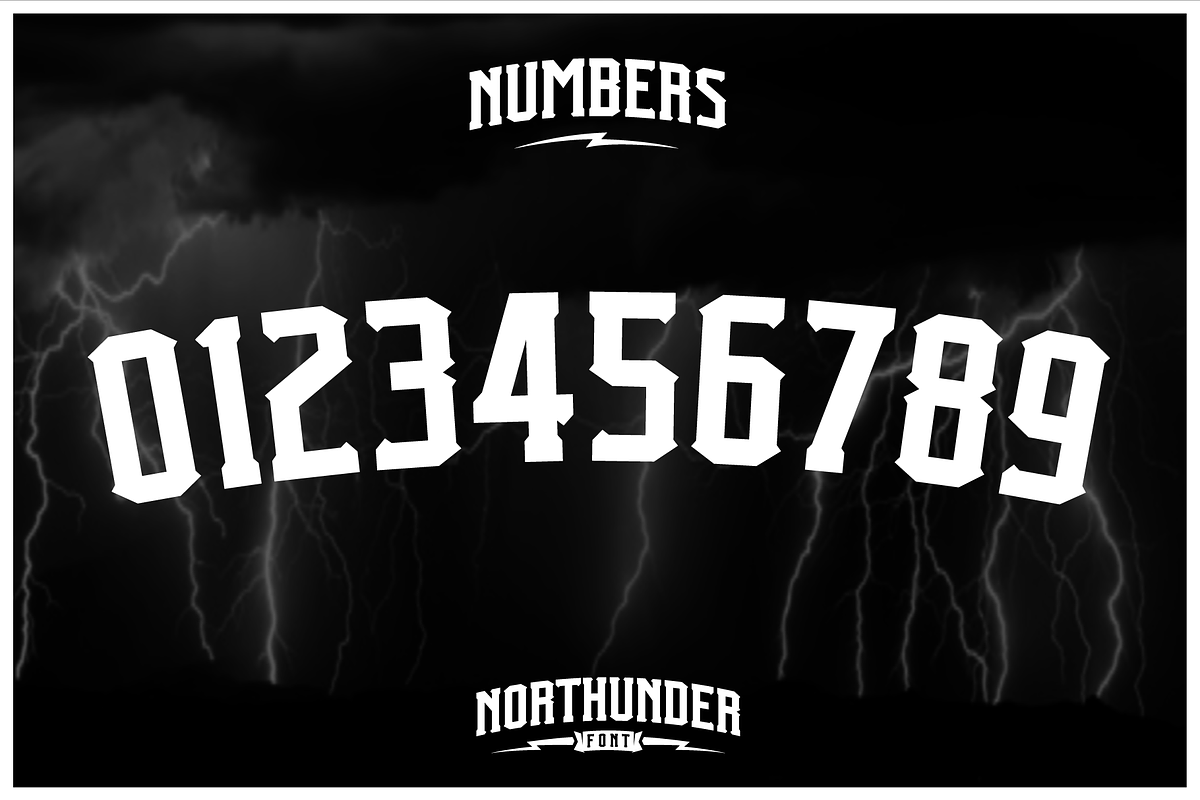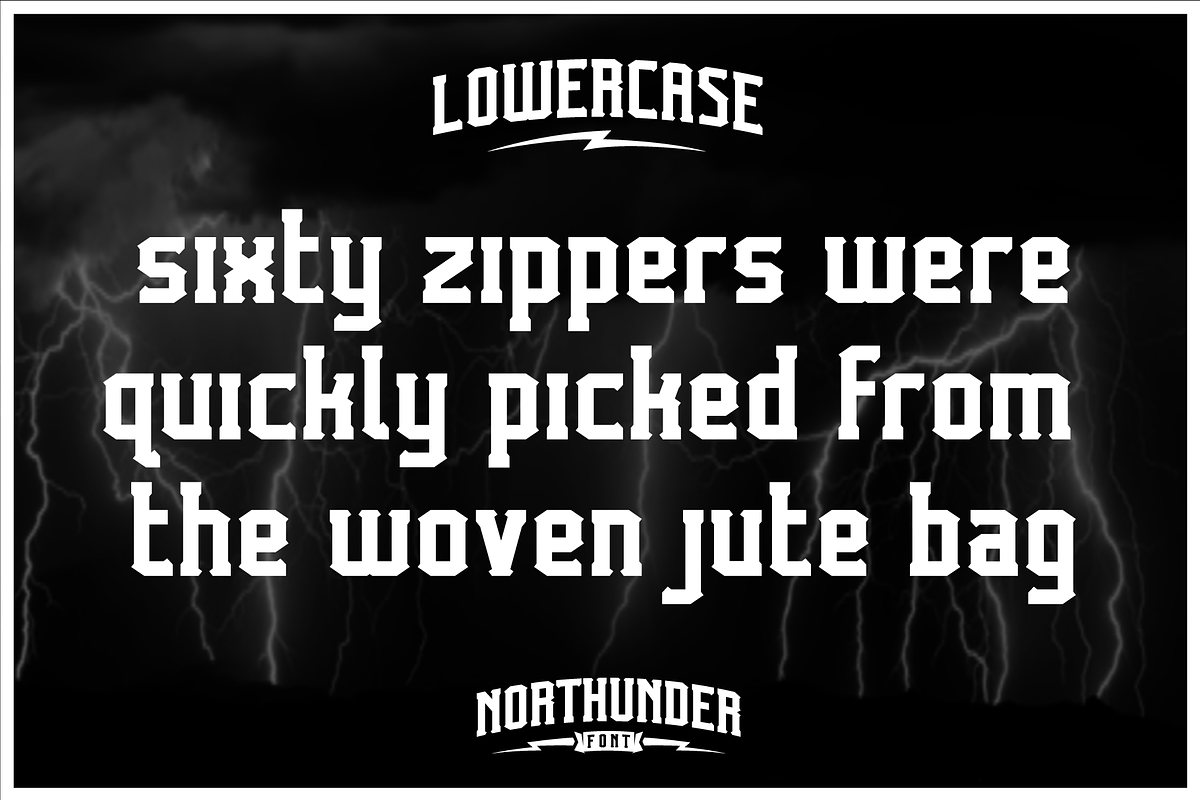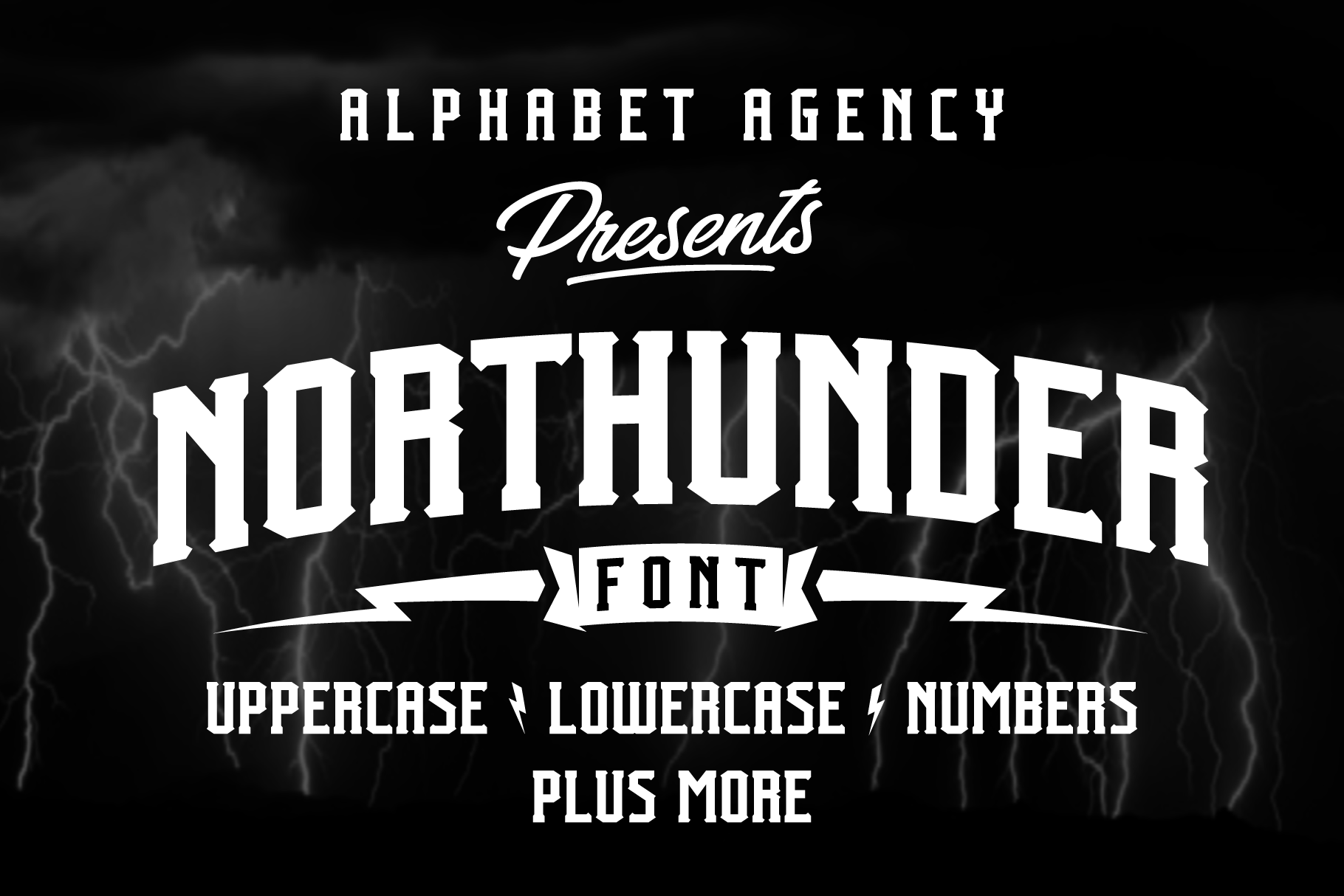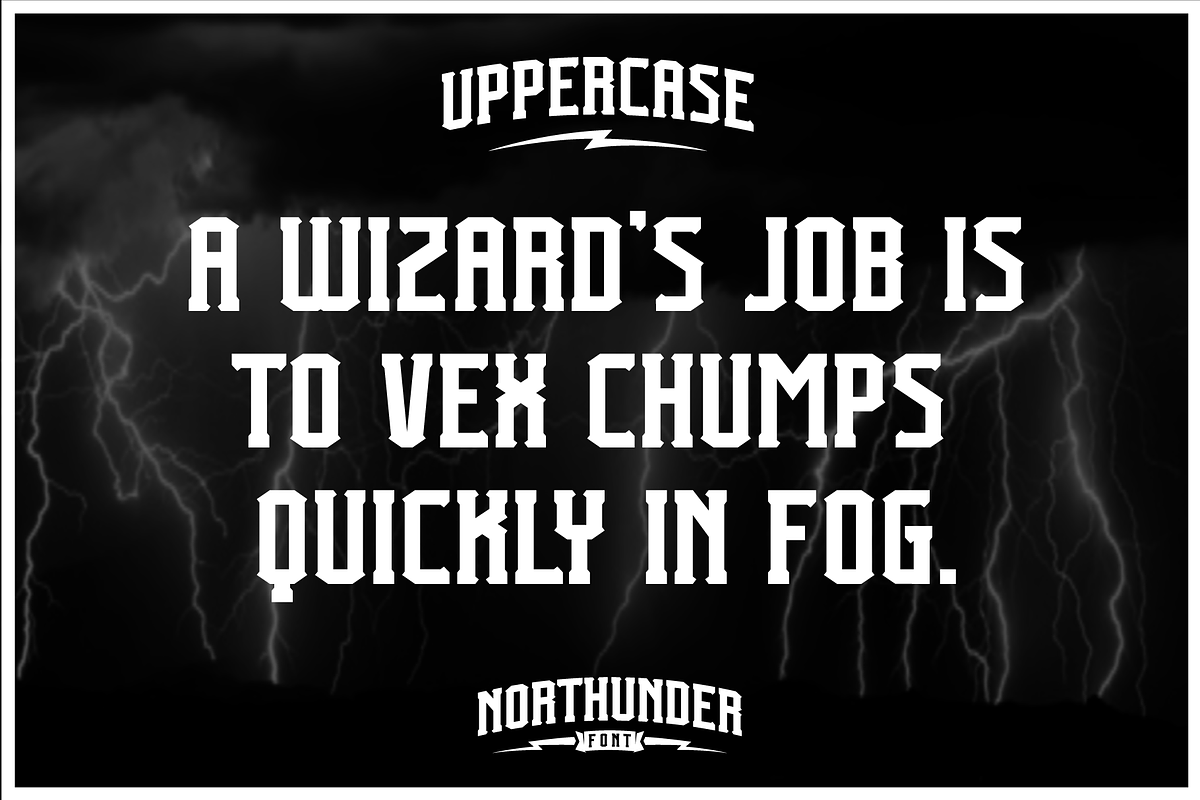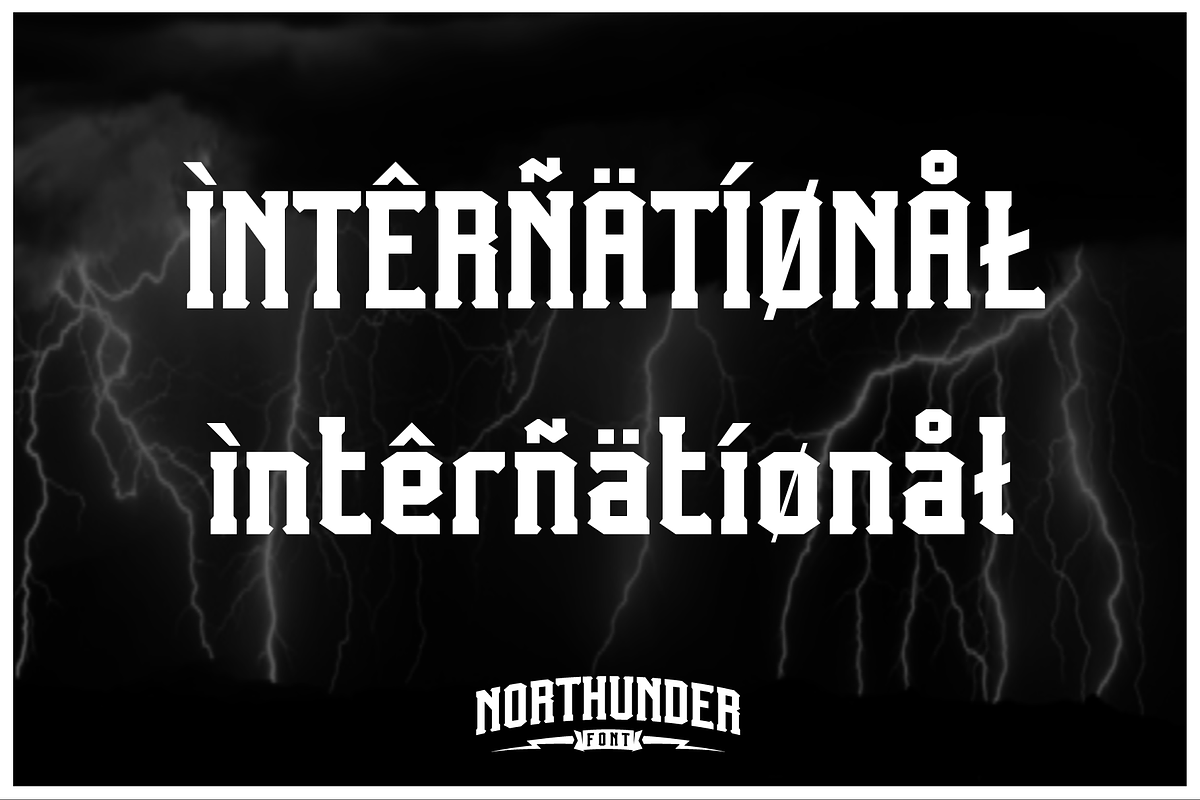
Northunder Font
Northunder (Nor/Thunder) is a vintage style font with a powerful presence. It can be used as an excellent display font as it possesses a unique serif style combination of slab serif and serif that create sharp points that really give the font its character. The slab serif elements help give the characters a strong look and balance across the font. The font includes uppercase, lowercase, number, international Latin letters and punctuation.